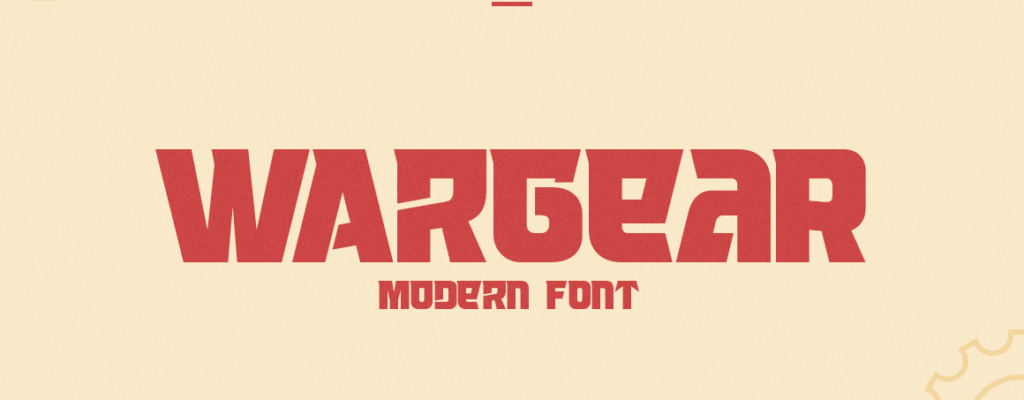
About the Product : Wargear is an attractive Display typeface that created elegant and modern look. To pick this font is a solution for your awesome graphic projects such a magazine Header, movie poster or flyer design that require a unique touch. This font is a great option in designing logo tagline, and also can … Continue reading Wargear